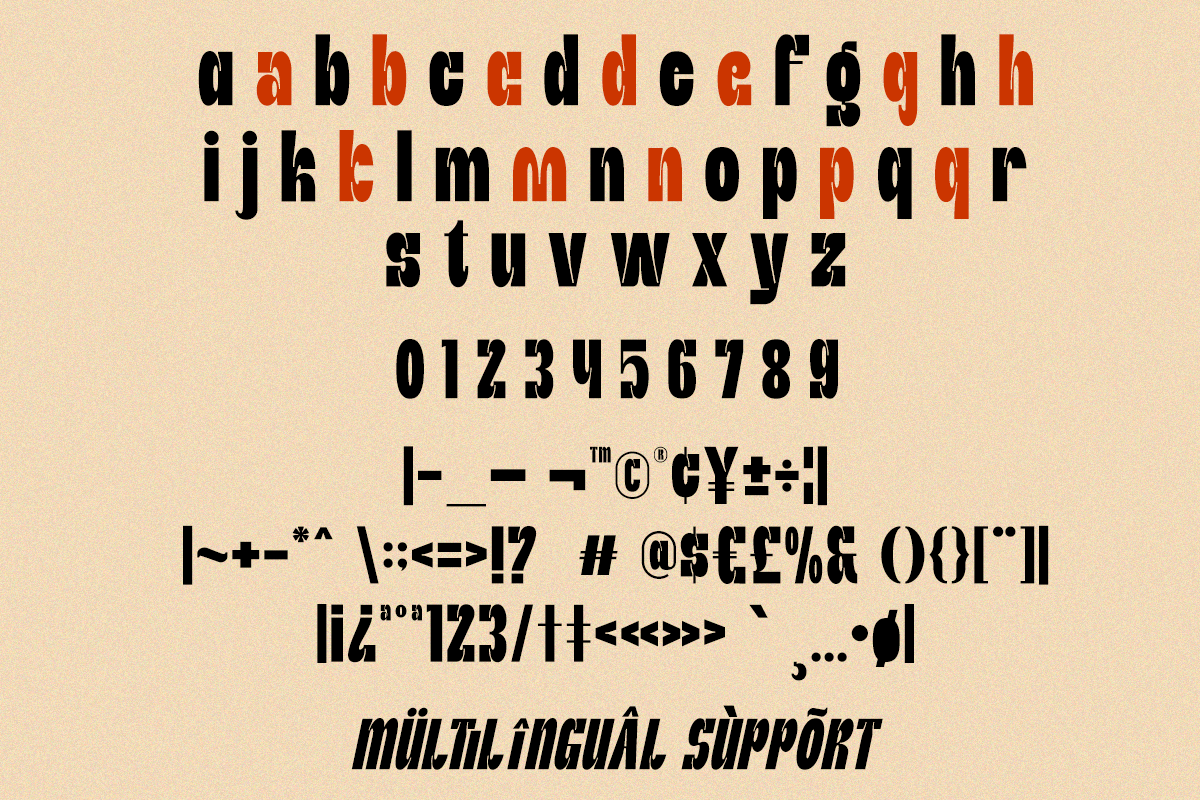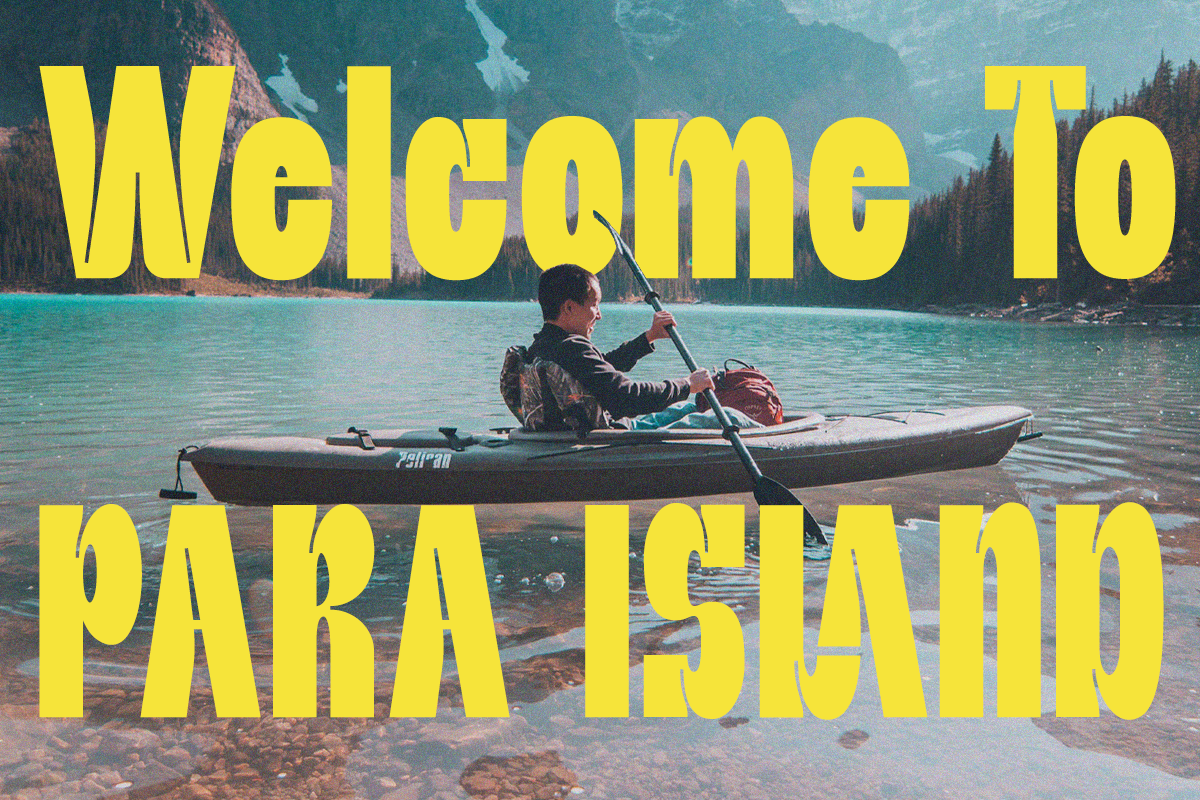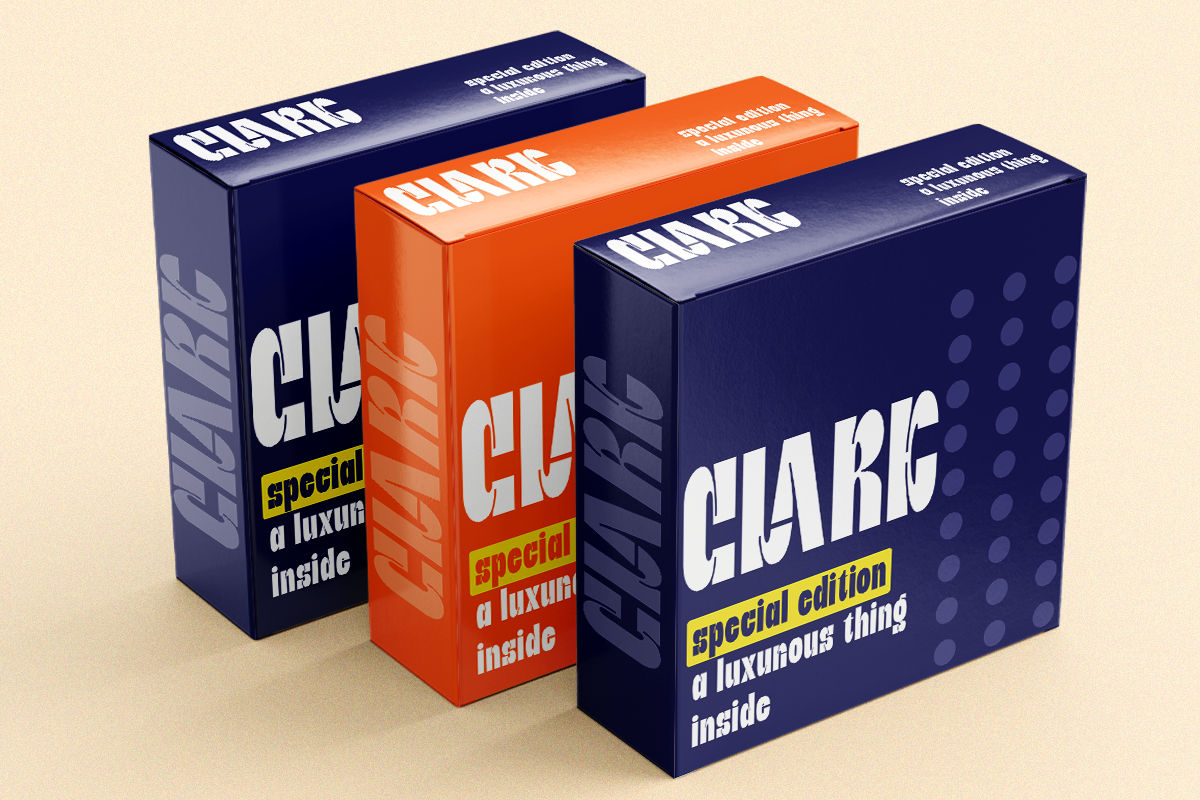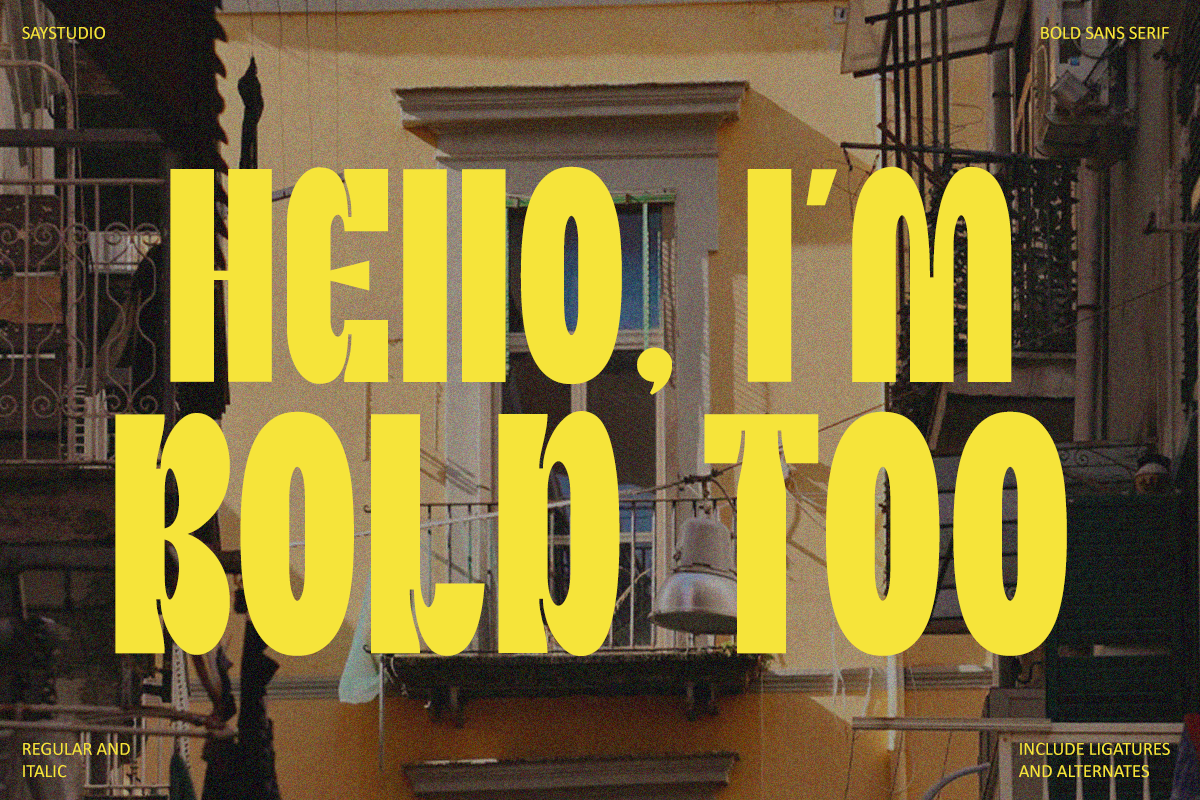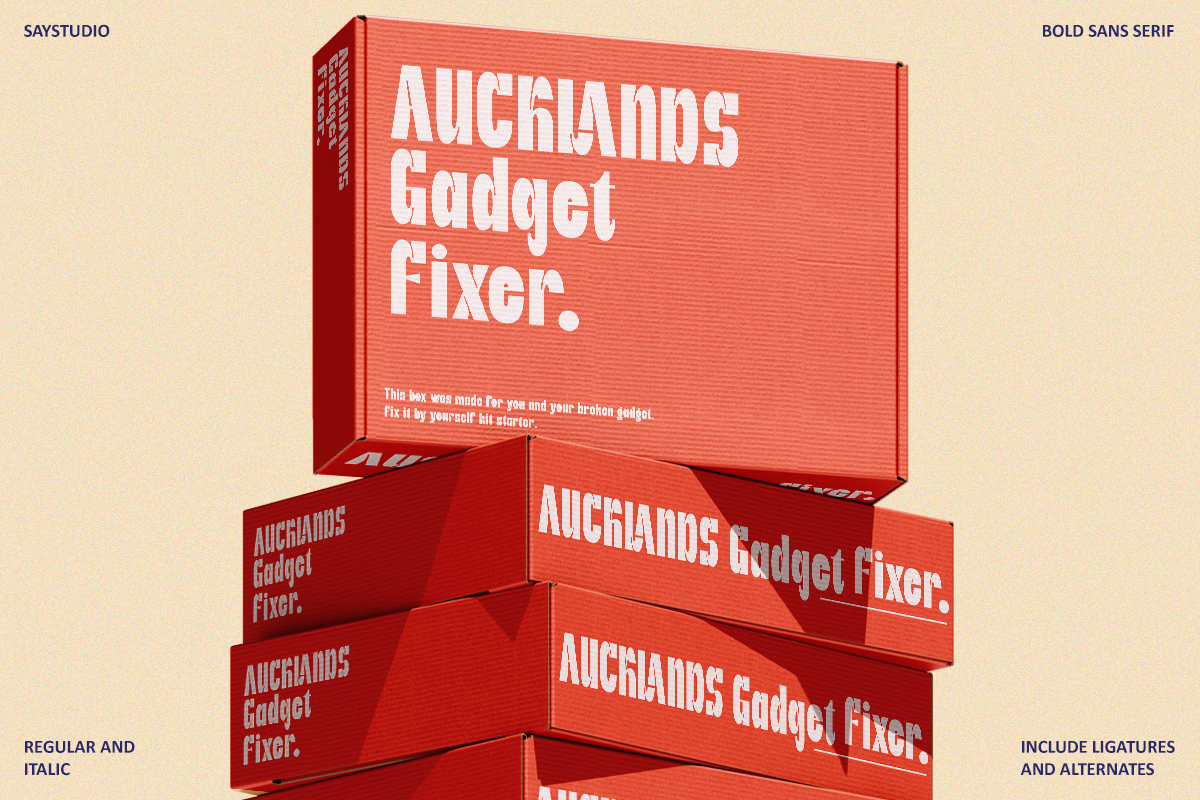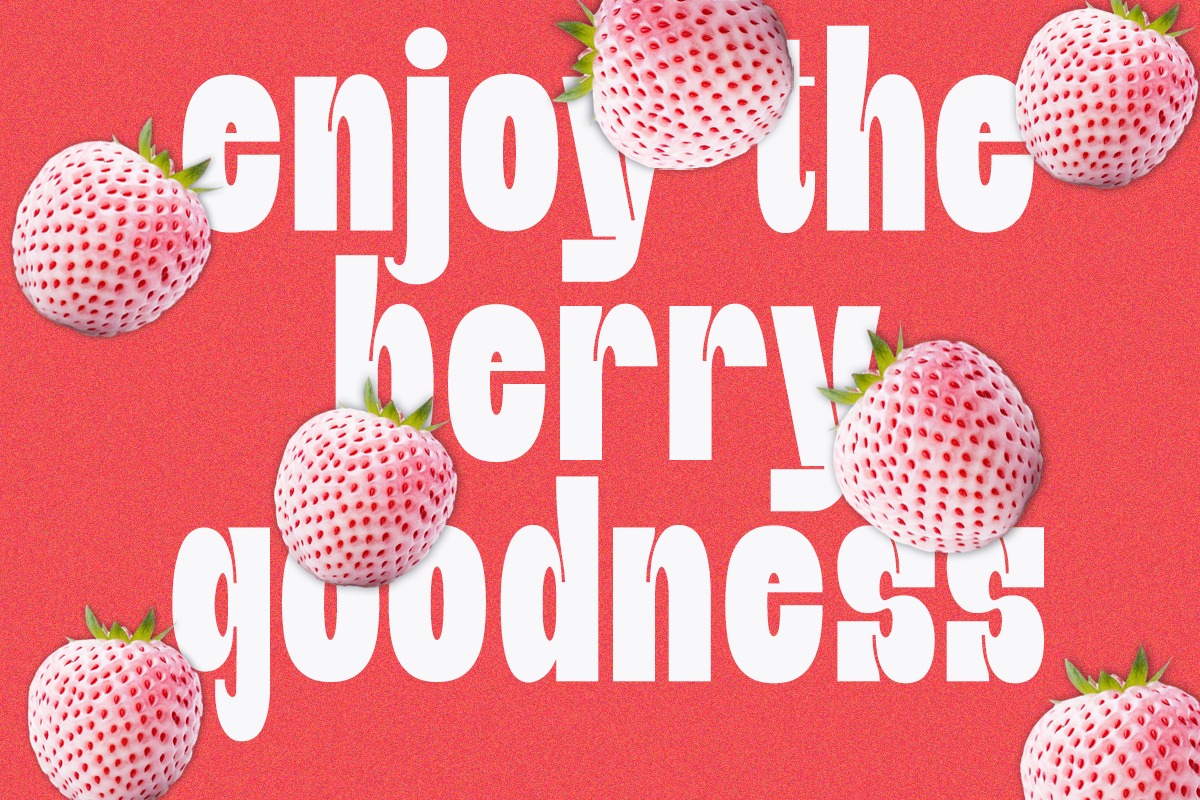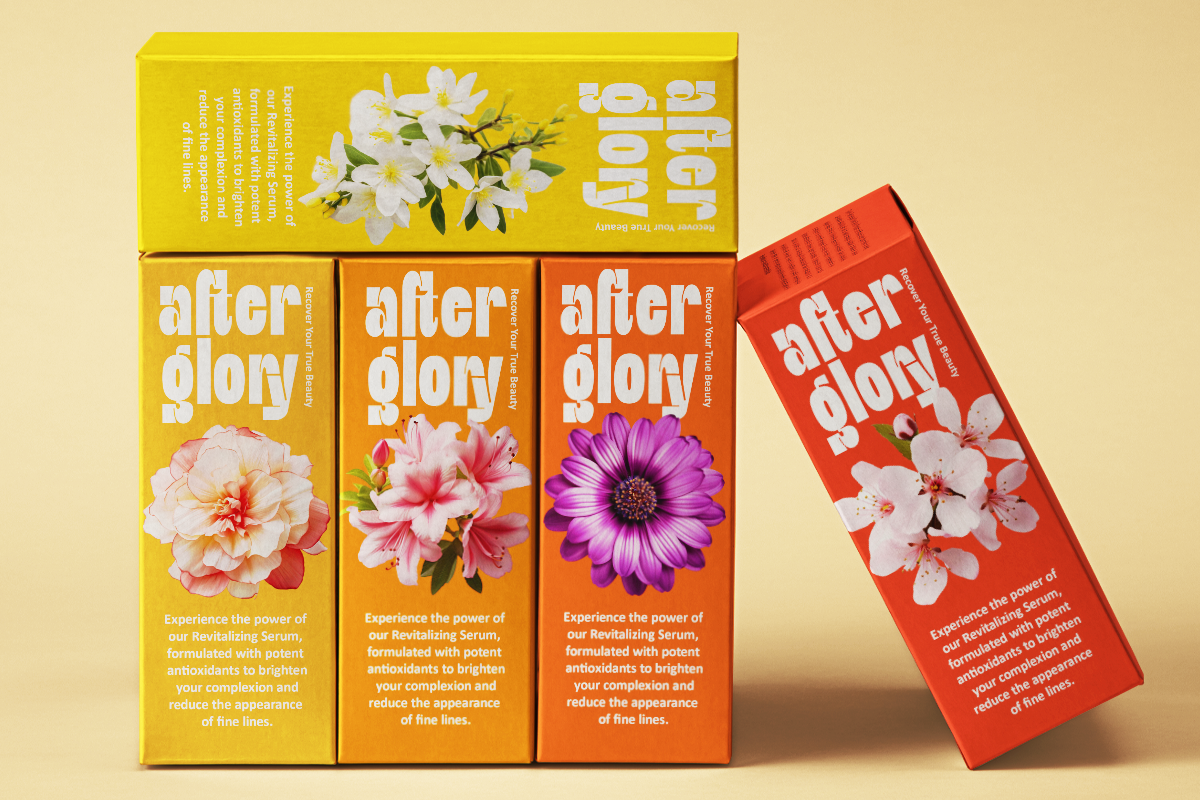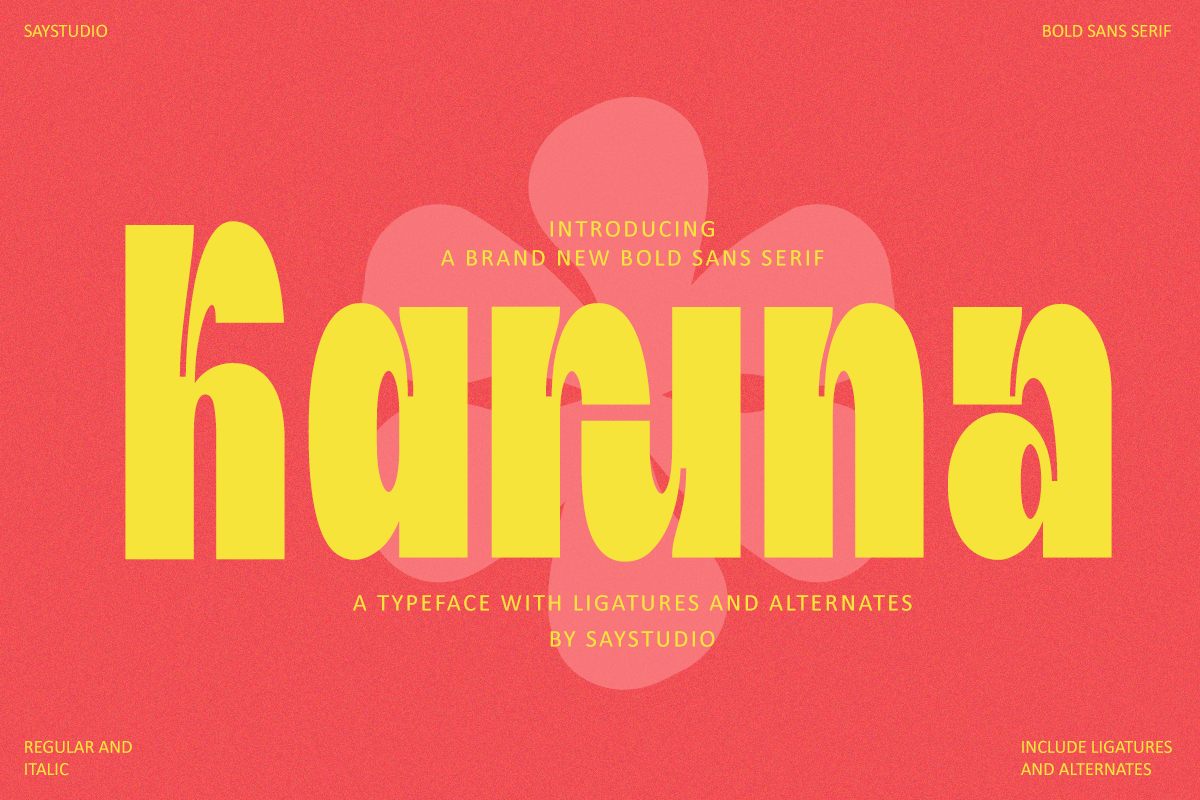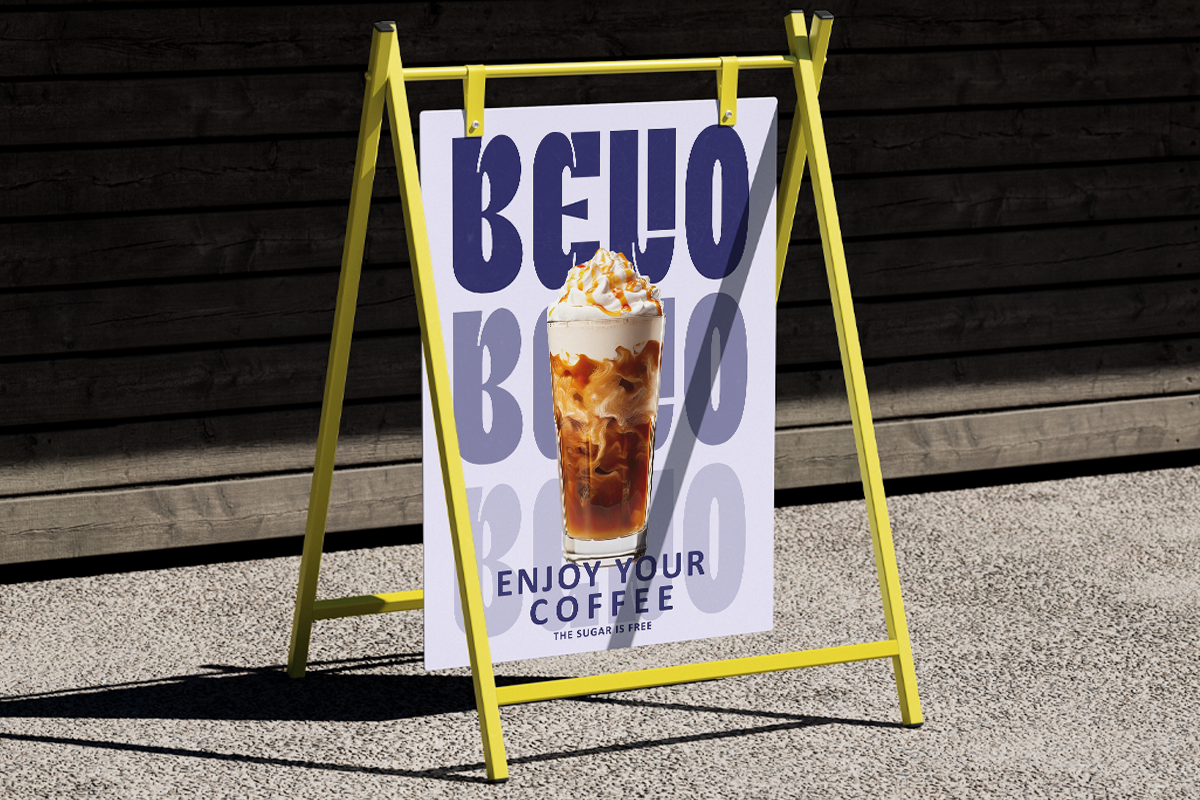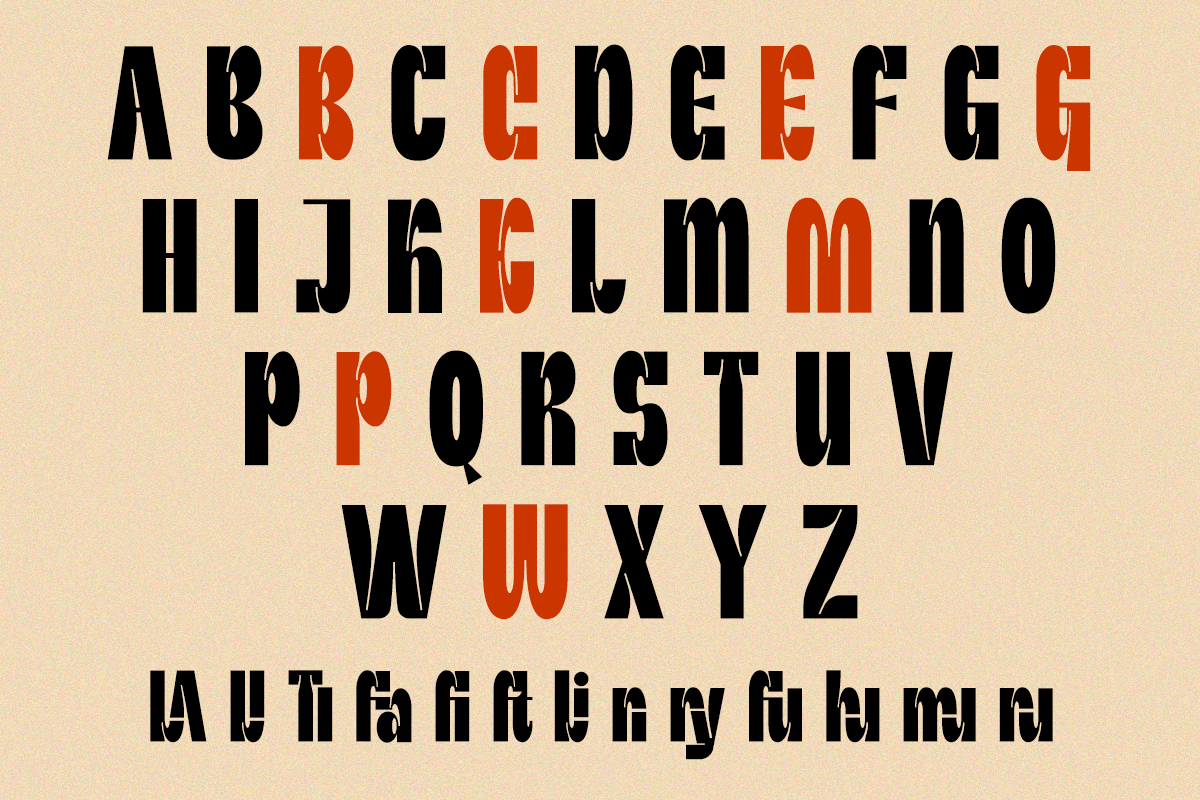
Karuna - Bold Sans Font
Karuna, my super bold sans serif, isn't messing around. Its sharp angles and commanding presence demand attention. With a modern, urban edge, it’s ideal for cutting-edge branding, eye-catching headlines, and impactful social media graphics.